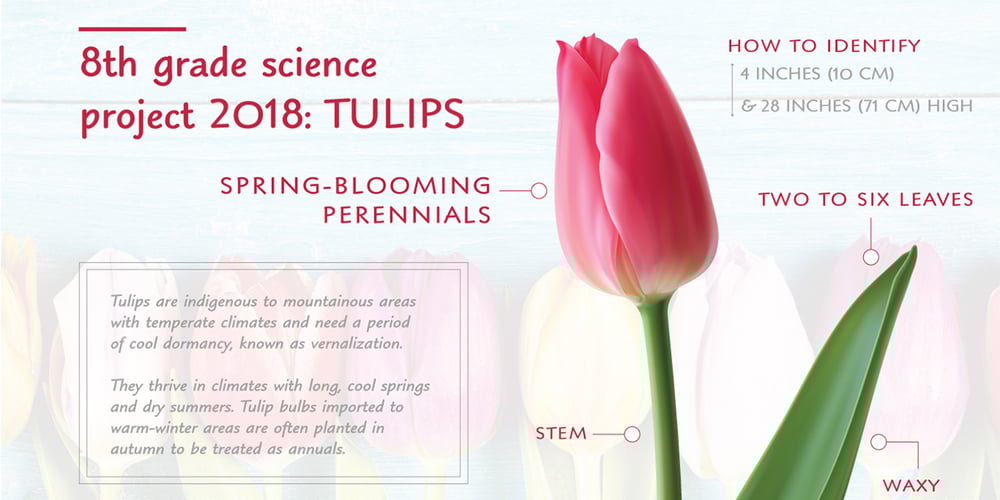
Blueprint Font Family was designed by Steve Matteson and published by Monotype. Blueprint contains 4 styles and family package options. Blueprint is an informal typeface designed by Monotype. A stylized handwritten letterform, Blueprint fills the need for a draughtsman-like typeface. The first letters drawn were capitals, the lowercase were added later to create a fully functional typeface. Designed to look like hand lettering but without any joining lowercase, this Blueprint font family is very legible and is well suited to any casual or informal application. Excellent for use in text, Blueprint is ideal in a wide range of setting, including: manuals, letters, faxes, presentations, instruction books and packaging.Featured in: Best Fonts for TikTok